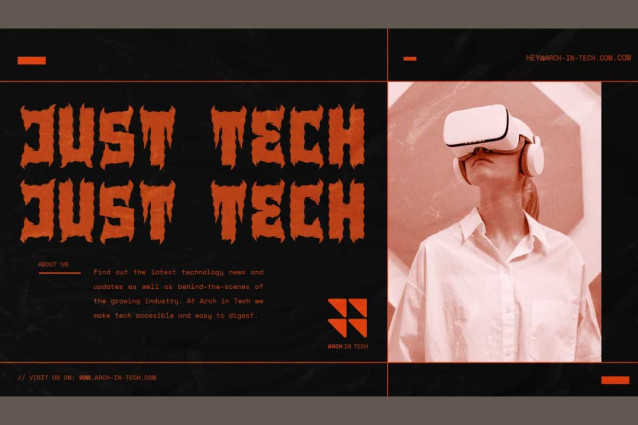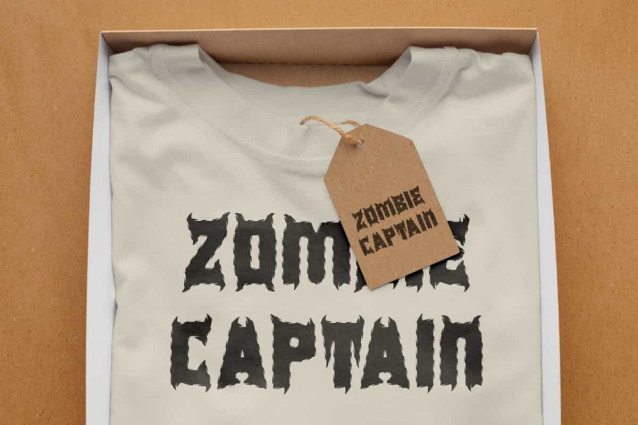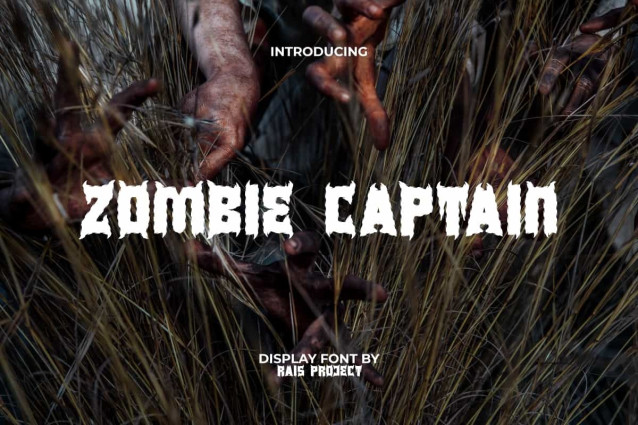
Zombie Captain Font
Zombie Captain Font is a horror brush decorative font. This font has brush strokes along the sides of the letters with the addition of horn shapes on top. It would be good for your design, such as custom design, brand image, invitation, label, menu, poster, signage, stationery, website page, and more!
Zombie Captain Font includes a full set of ALL CAPS for Uppercase and Lowercase Letters, Numerals, and large range of Punctuation. This unique font will be suitable for various industries, such as event or festival, fashion, game, movie, photography, printing, publishing, etc.